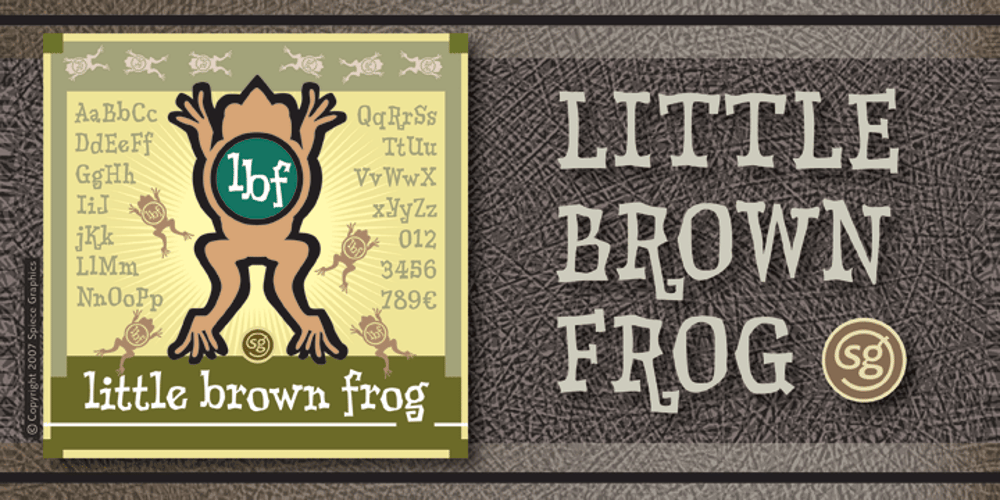
Little Brown Frog SG Font Family was designed by Jim Spiece and published by Spiece Graphics. Little Brown Frog SG contains 1 styles and family package options. Here’s a typeface that’s both primitive and playful. It could aptly be described as having a modest bounce, unusual web feet, and a slightly grotesque croak. Joking aside, this amphibious creature-font is ideally suited for funny headlines as well as other goofy stuff. Great for party announcements, cartoon lettering, or just about anything involving kids. Or even fun-crazed adults! Little Brown Frog is also available in the OpenType Std format. Some new alternate characters have been added to this OpenType version. Advanced features currently work in Adobe Creative Suite InDesign, Creative Suite Illustrator, and Quark XPress 7. Check for OpenType advanced feature support in other applications as it gradually becomes available with upgrades.